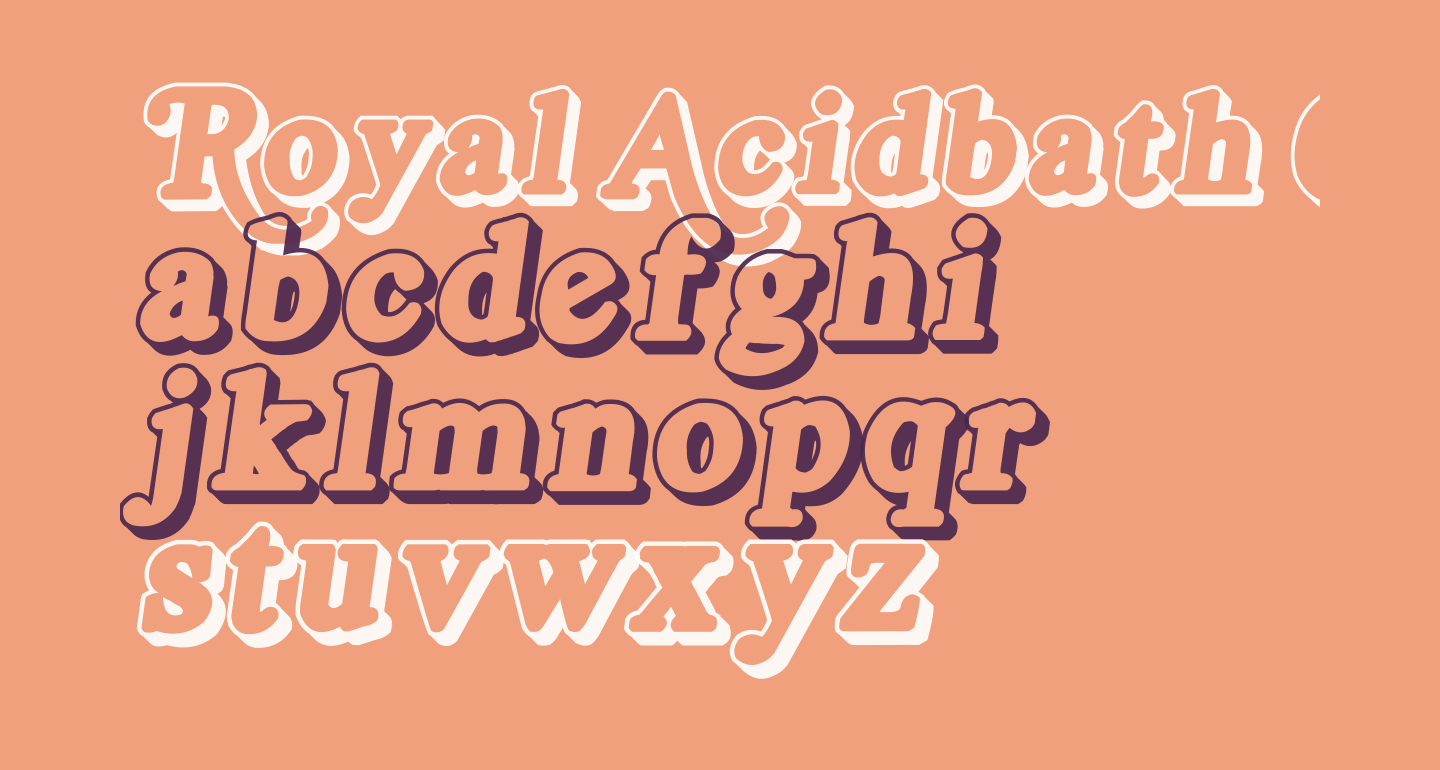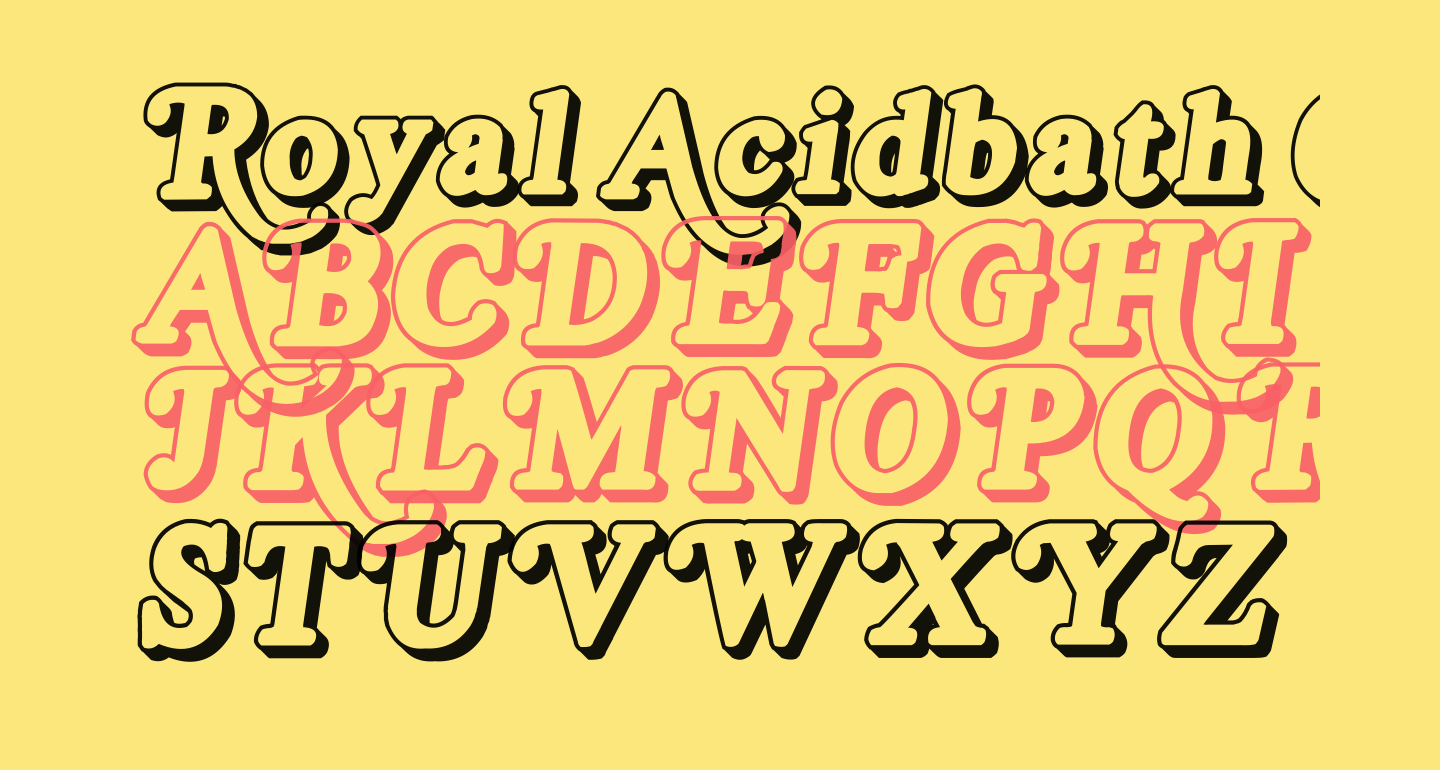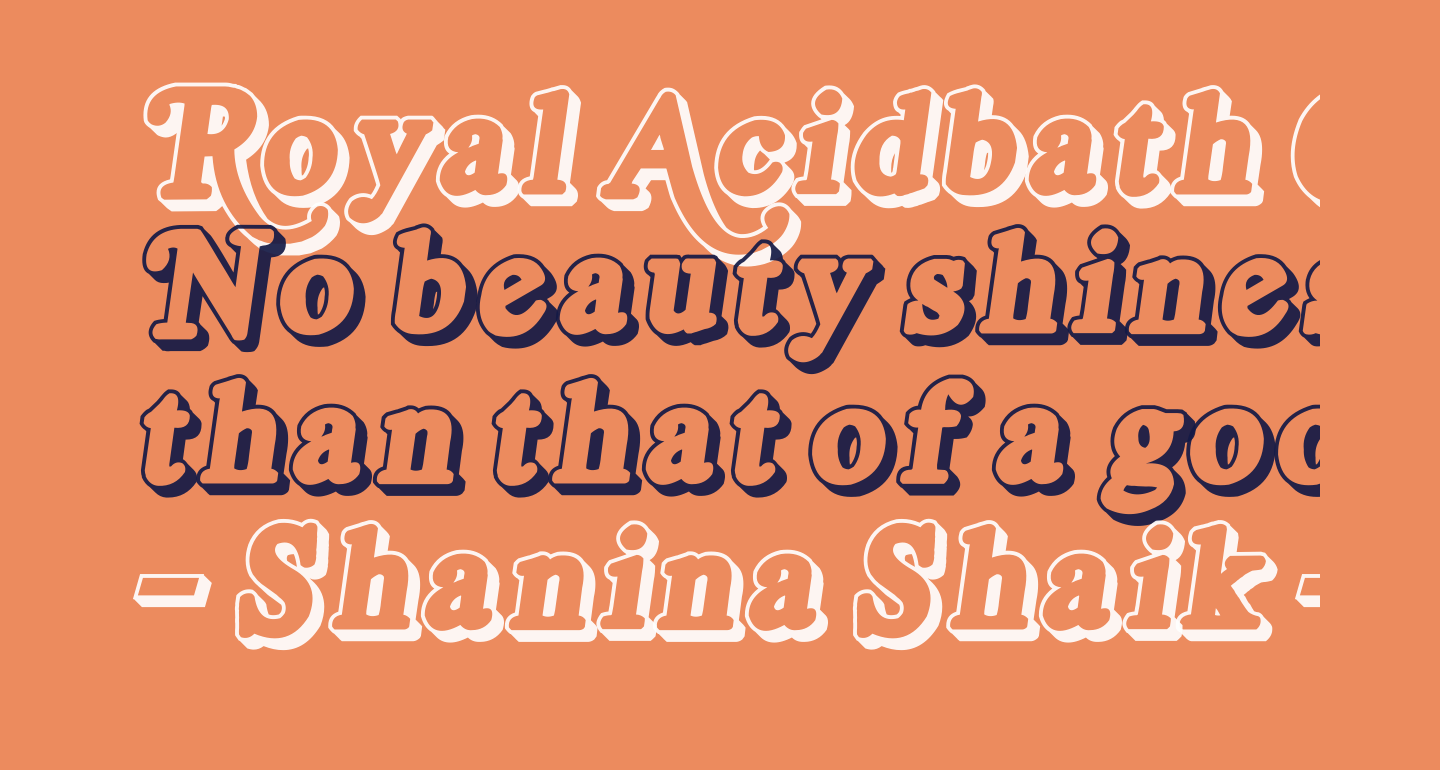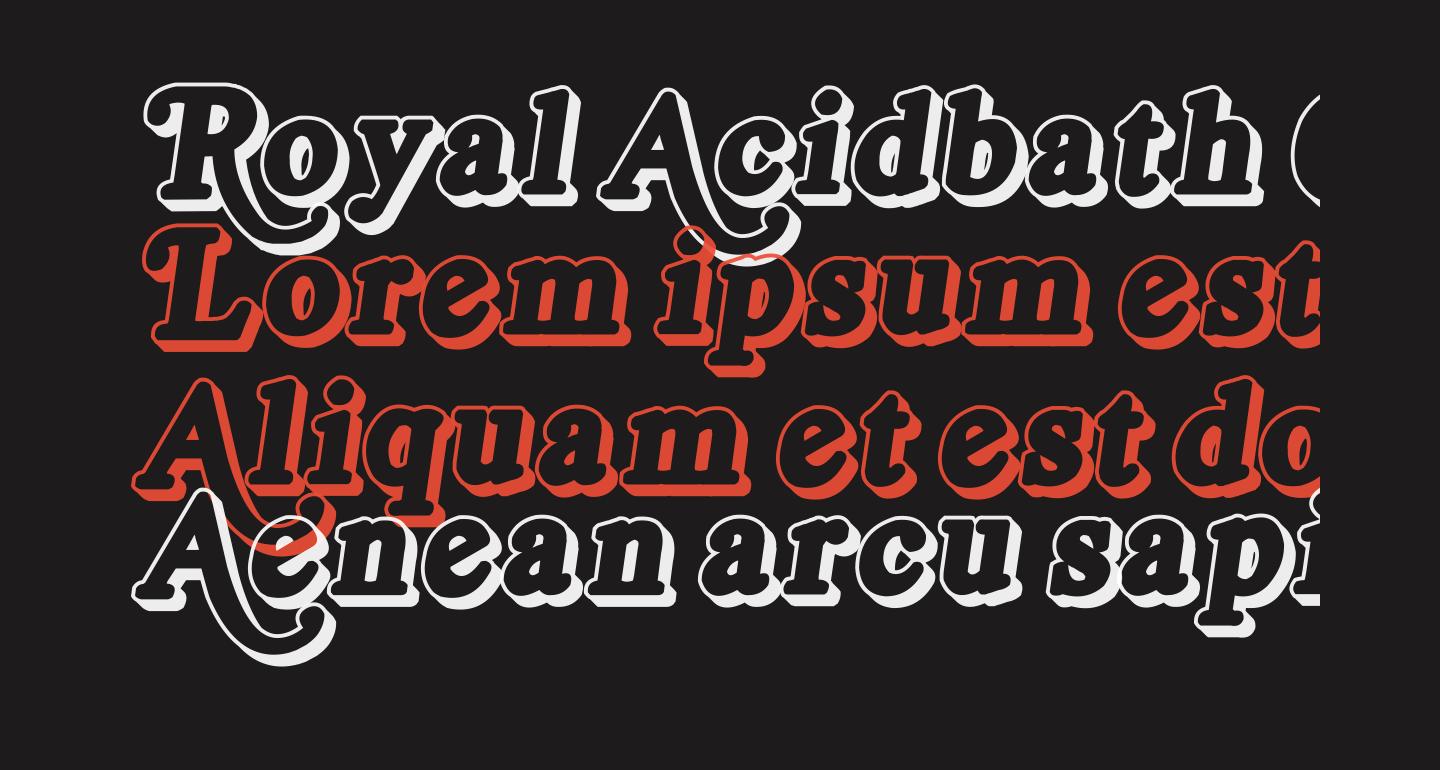
Web royal acidbath by sharkshock. Web royal acidbath font is a fancy, outline font designed by sharkshock. Royal acidbath font is available for free download for noncommercial, personal projects.
Web royal acidbath font is a fancy, outline font designed by sharkshock. Web royal acidbath serif font is a stylish and fun display typeface with a touch of vintage style. Web download and install the royal acidbath font by sharkshock. Web royal acidbath by sharkshock.
Free Royal Acid Bath Font - Web royal acidbath font is a fancy, outline font designed by sharkshock. Web download royal acidbath font free! Use it for any design project. Royal acidbath is a free font for personal use created by sharkshock. The royal acidbath font has been downloaded 209,390.
Free Royal Acid Bath Font - Web royal acidbath font is a fancy, outline font designed by sharkshock. Web download royal acidbath font free! Web royal acidbath font download is available free from fontget. Royal acidbath font is available for free download for noncommercial, personal projects. Moreover, you can embed it to your website with @font.
Free Royal Acid Bath Font - Moreover, you can embed it to your website with @font. Web royal acidbath font is a fancy, outline font designed by sharkshock. Royal acidbath is a free font for personal use created by sharkshock. Royal acidbath font is available for free download for noncommercial, personal projects. Use it for any design project.
Free Royal Acid Bath Font - Use it for any design project. Royal acidbath is a free font for personal use created by sharkshock. Web royal acidbath font is a fancy, outline font designed by sharkshock. Moreover, you can embed it to your website with @font. Web royal acidbath font download is available free from fontget.
Free Royal Acid Bath Font - Web download and install the royal acidbath font by sharkshock. Web download royal acidbath font free! Web royal acidbath font is a fancy, outline font designed by sharkshock. Web royal acidbath font download is available free from fontget. Moreover, you can embed it to your website with @font.
Free Royal Acid Bath Font - Web royal acidbath serif font is a stylish and fun display typeface with a touch of vintage style. Web royal acidbath font download is available free from fontget. Royal acidbath is a free font for personal use created by sharkshock. Web download and install the royal acidbath font by sharkshock. The royal acidbath font has been downloaded 209,390.
Free Royal Acid Bath Font - Web royal acidbath font is a fancy, outline font designed by sharkshock. Web royal acidbath serif font is a stylish and fun display typeface with a touch of vintage style. Royal acidbath is a free font for personal use created by sharkshock. Web royal acidbath font download is available free from fontget. Royal acidbath font is available for free download.
Free Royal Acid Bath Font - Use it for any design project. Royal acidbath font is available for free download for noncommercial, personal projects. Moreover, you can embed it to your website with @font. Web royal acidbath font download is available free from fontget. Web royal acidbath by sharkshock.
Free Royal Acid Bath Font - Web download royal acidbath font free! Web royal acidbath serif font is a stylish and fun display typeface with a touch of vintage style. Web royal acidbath by sharkshock. Use it for any design project. Web download and install the royal acidbath font by sharkshock.
Free Royal Acid Bath Font - Web royal acidbath font is a fancy, outline font designed by sharkshock. Web royal acidbath font download is available free from fontget. Moreover, you can embed it to your website with @font. Royal acidbath font is available for free download for noncommercial, personal projects. Use it for any design project.